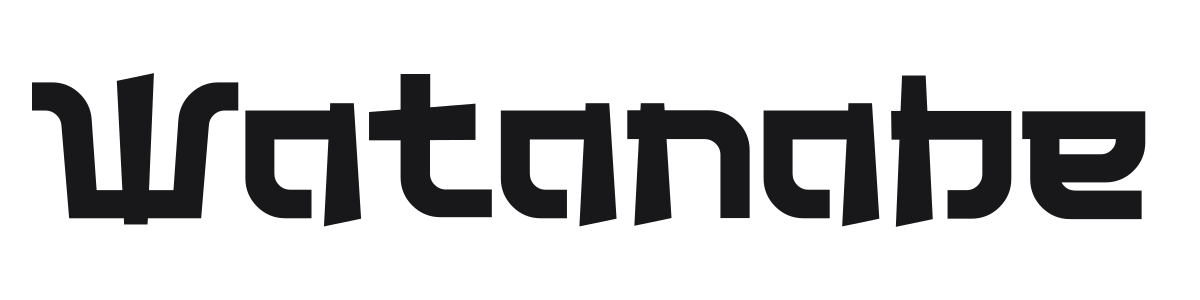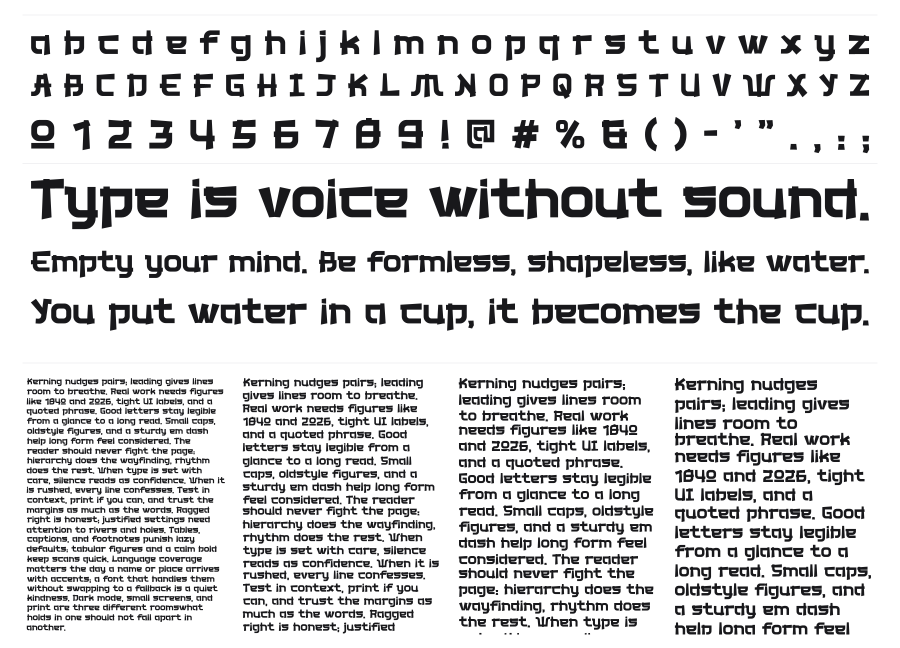
Watanabe
Watanabe is a heavy square sans with a bold, blocky construction that draws clear influence from East Asian character design. Flat terminals, low stroke contrast, and subtly rounded interior corners give it a distinctive techno-industrial texture. It commands attention at large sizes and works naturally in gaming, music, and streetwear contexts.